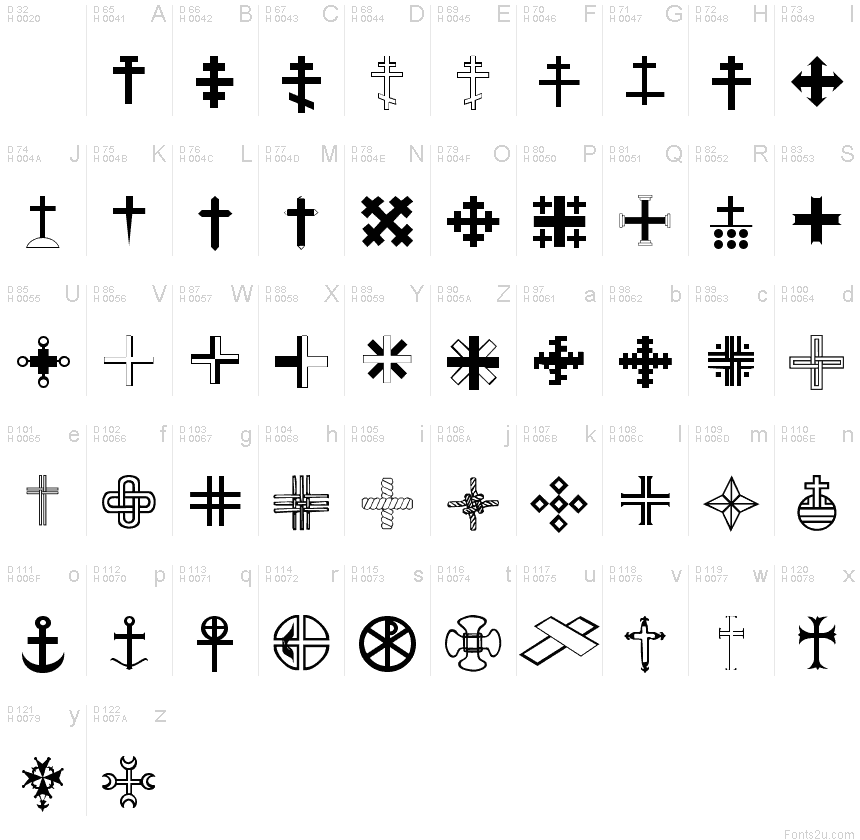
Christian Crosses III
Christian Crosses III font by Unauthorized Type is a free Christian symbols dingbat font. Each glyph feels like a tiny emblem: bold stacked crosses, woven lattices, rope-wrapped forms, and circular seals that echo ancient carvings and stained glass. The mix of solid black silhouettes and clean outlines gives you both punchy icons and lighter, more contemplative marks in a single, easy set.
Using Christian Crosses III, you can quickly add sacred iconography to church bulletins, worship slides, retreat posters, devotional booklets, album art, and scripture-based social graphics. The symbols print crisply at small sizes yet hold up as striking marks on banners or covers. For a balanced layout, pair this free font’s icons with a simple sans serif text typeface and keep plenty of white space around each symbol.